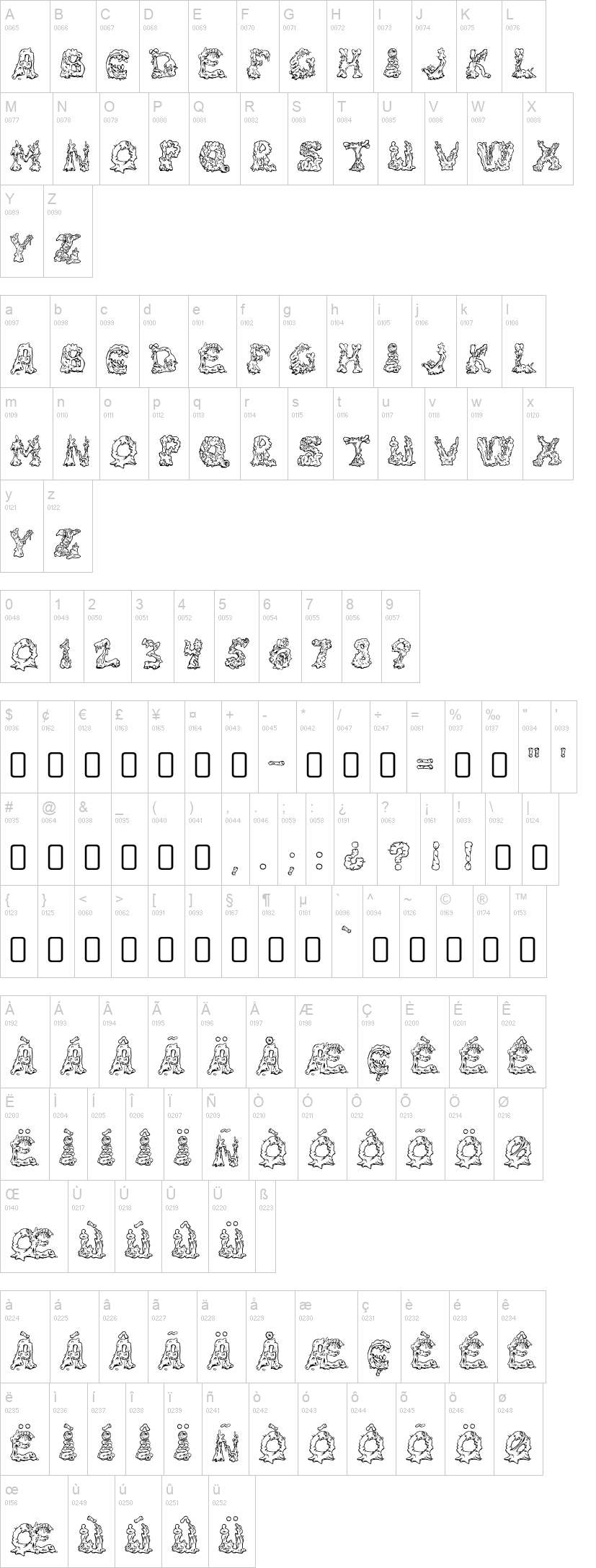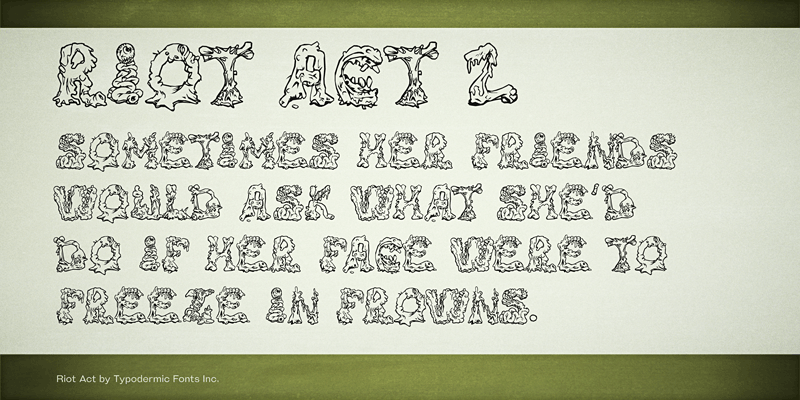
Riot Act 2 Back.otfRiot Act 2 Front.otfRiot Act 2 Glop.otfNote of the authorRiot Act 2 is a revolting headline belcher consisting mainly of monster viscera.